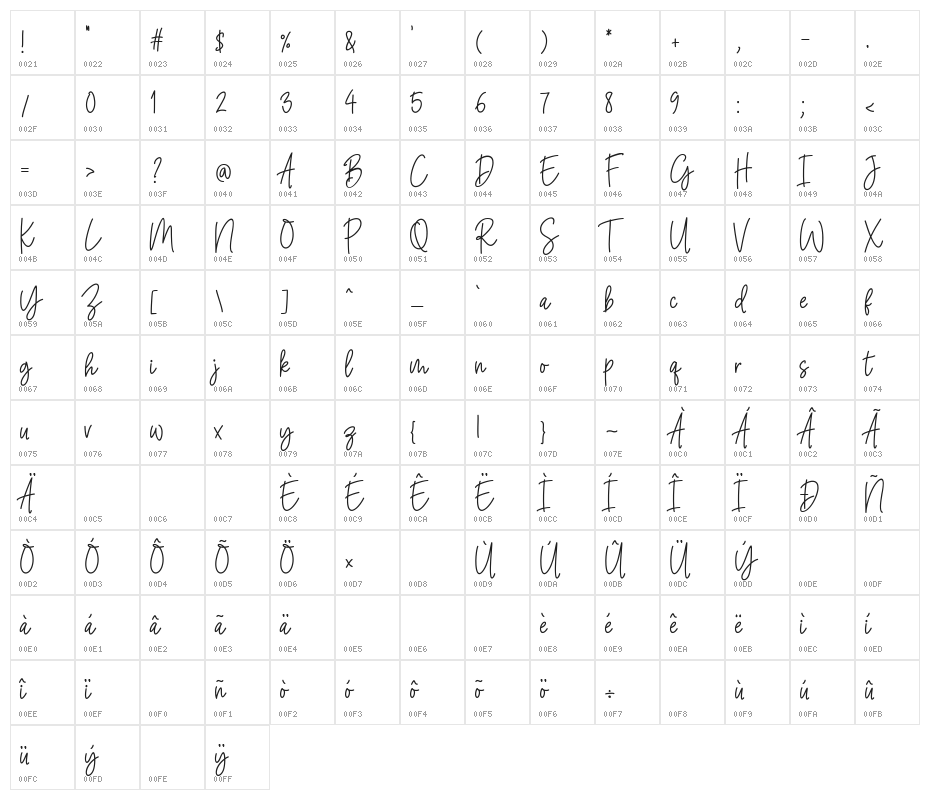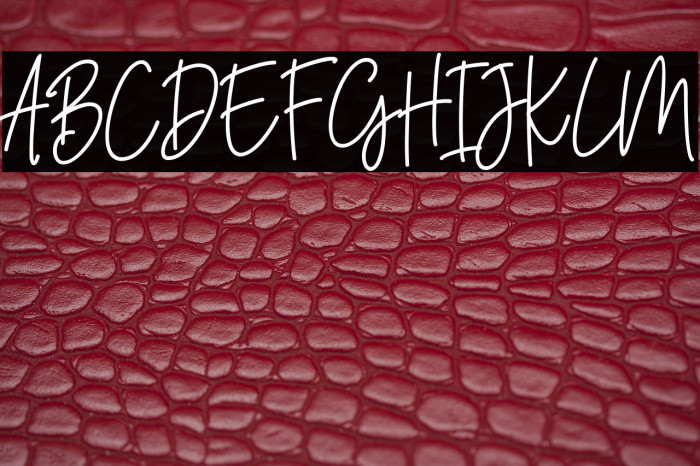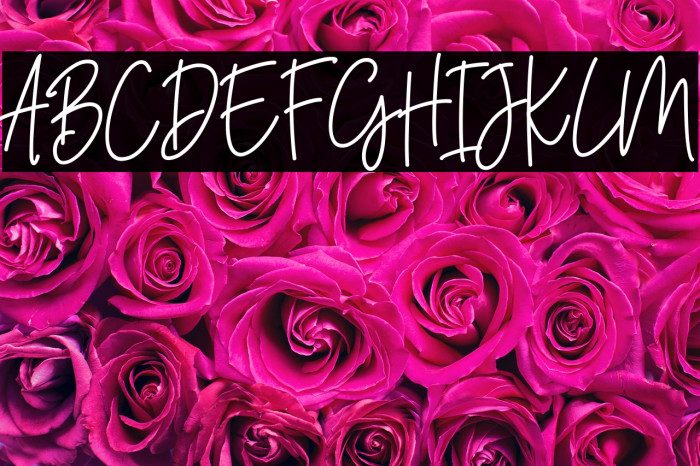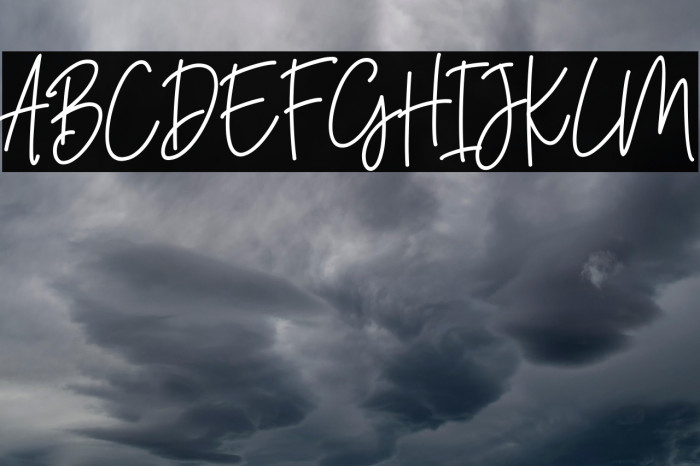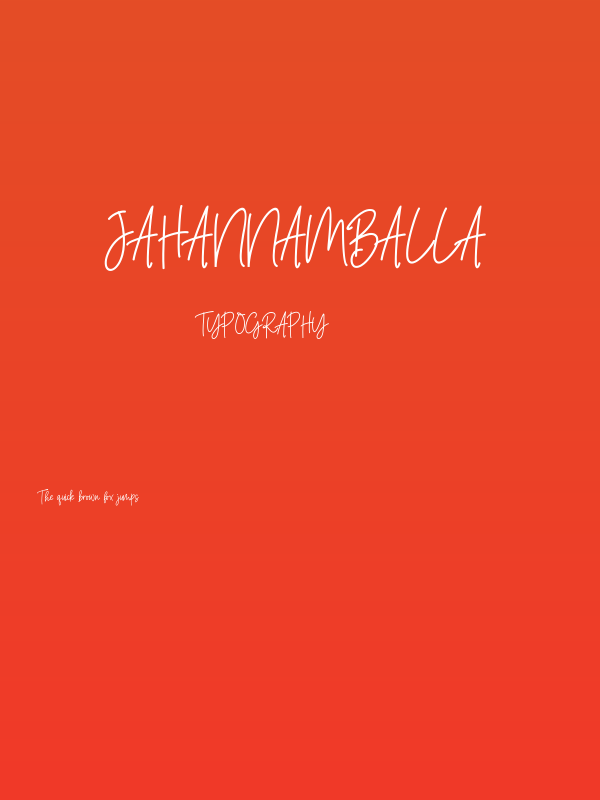
JahannamBalla Font
JahannamBalla Description
This font features a lively and expressive handwritten style, characterized by its fluid and dynamic strokes. The uppercase letters exhibit a tall and narrow form, with a playful and slightly irregular baseline that adds to its casual charm. The lowercase letters maintain a consistent flow, enhancing readability while preserving the handwritten aesthetic. Numbers and special characters are crafted with the same attention to detail, ensuring a cohesive look across all elements. The overall appearance is both modern and approachable, making it suitable for a variety of creative applications.
| Proposed Projects | Ideal for greeting cards, invitations, personal branding, and social media graphics. |